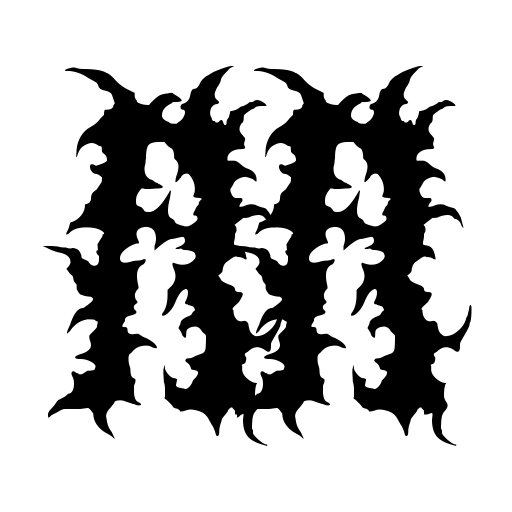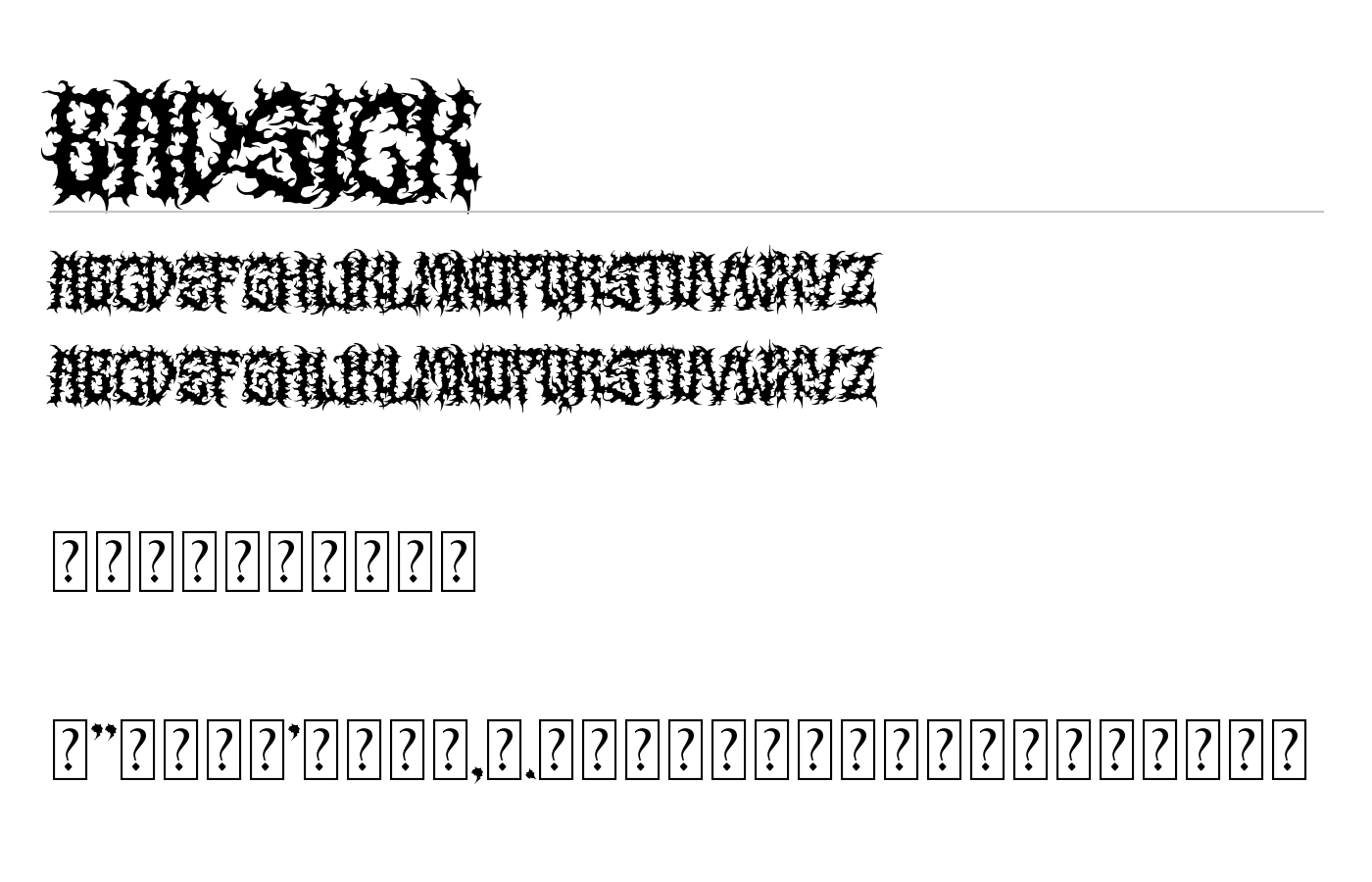
Badsick is a bold, decorative display font characterized by jagged, flame-like edges that give it a chaotic and edgy appearance. Its condensed, high-contrast letterforms create a dramatic impact, making it ideal for eye-catching headlines, posters, or branding that seeks to evoke a rebellious or intense vibe. Best suited for creative projects that benefit from a striking, unconventional style, Badsick captures attention with its wild, energetic personality.
Badsick Font
About Badsick Font
| Font family | Badsick Font |
| Designer | muhammad sirojuddin |